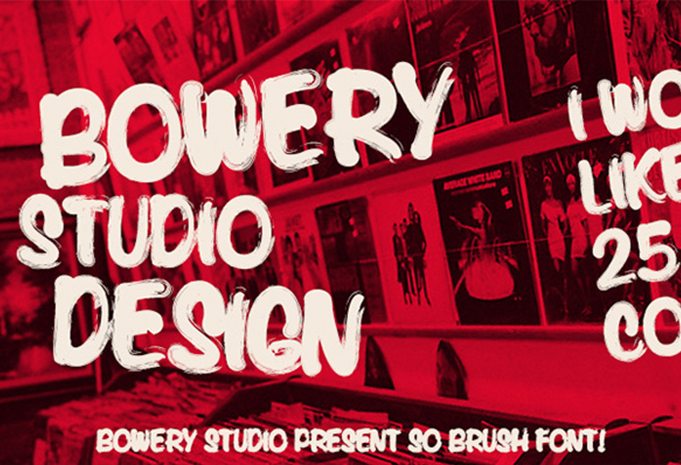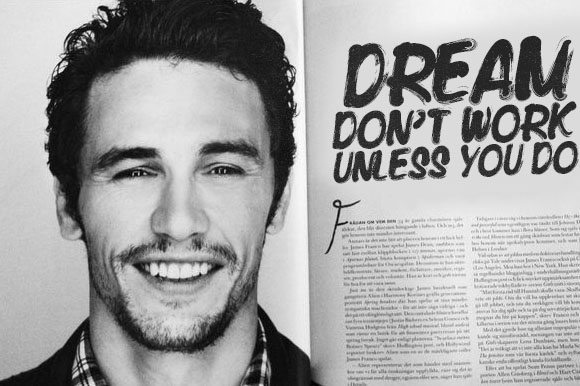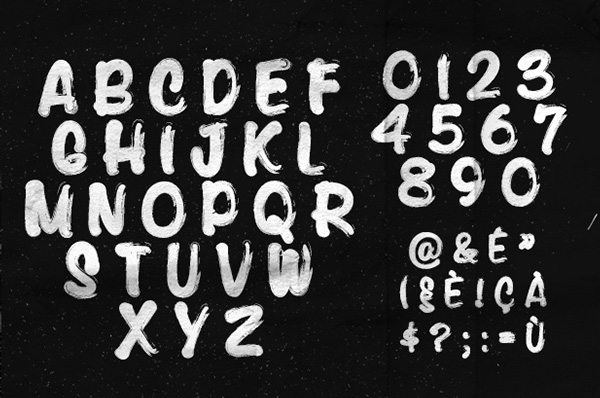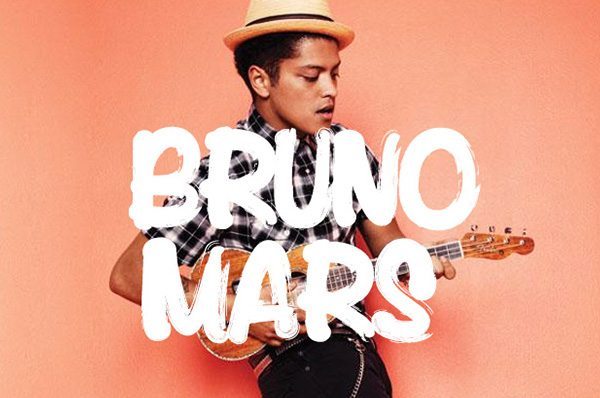
So brush is one of the best handpainted typeface you will need ,it comes with tow
Outstanding brush written style will perfectly fit for headlines of all sizes, print graphics, logos, badges, t-shirts and other designs.